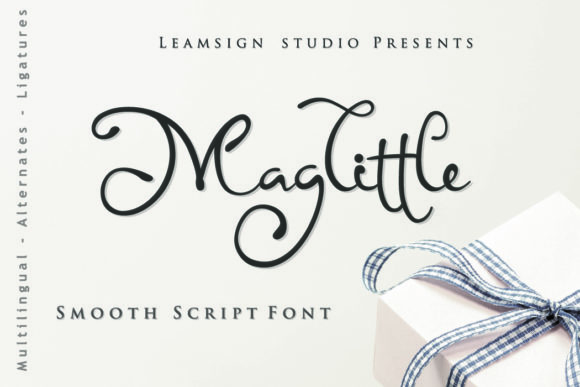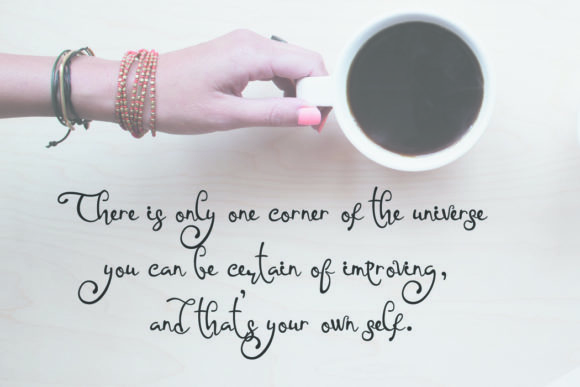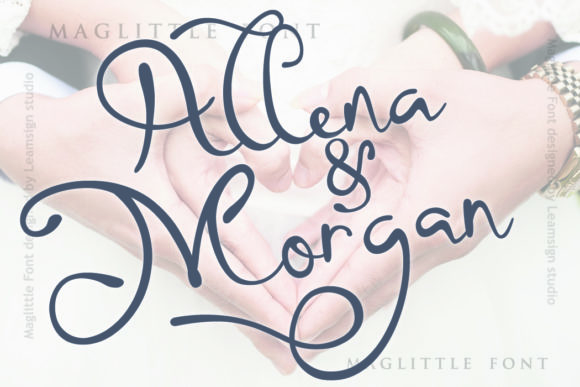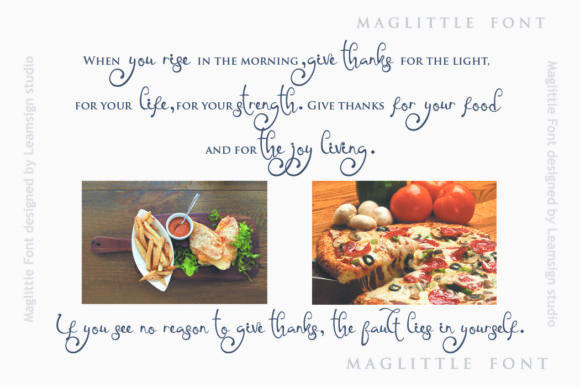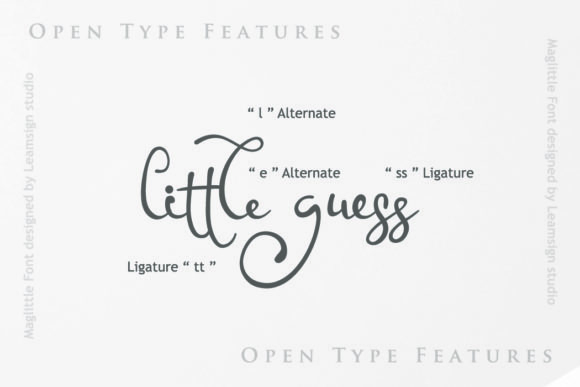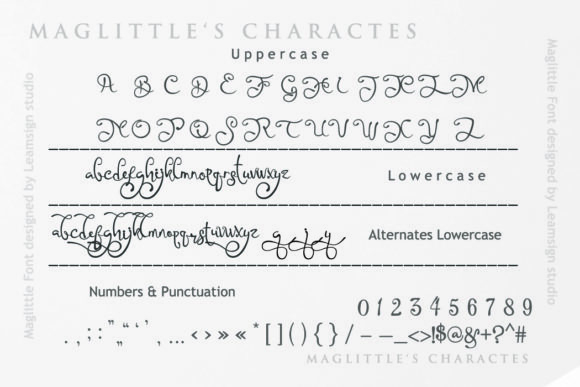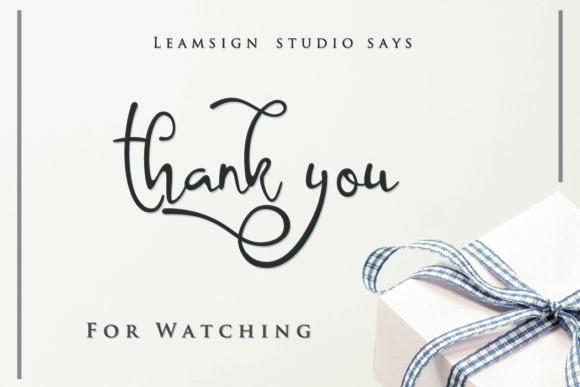
Maglittle Font
About Maglittle Font
The Maglittle is a nice script font with smooth curves. Its beauty will give a fun feel to your design projects.
It’s perfect for branding, logos, quotes, headers, product packaging, wedding invites, cards and many other designs!